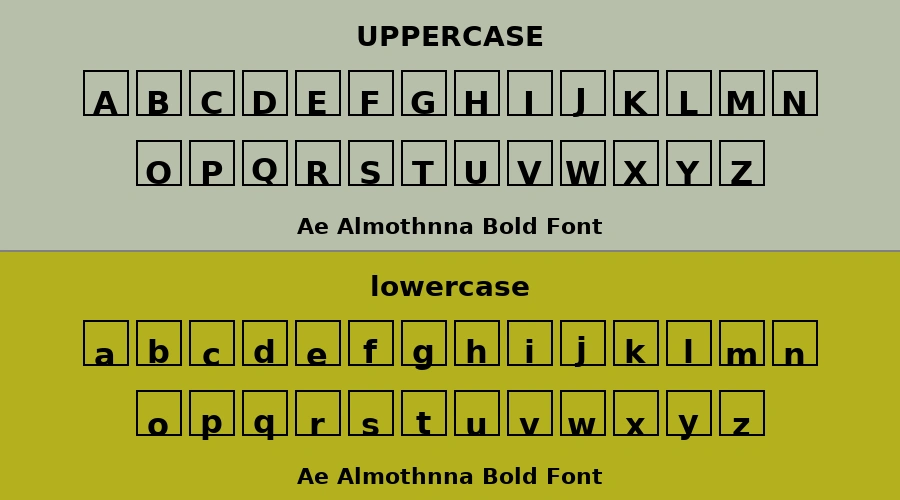
About Ae Almothnna Bold Font
Ae Almothnna Bold Font represents a sophisticated approach to type design, balancing decorative elements with visual comfort. Perfect for magazine covers, this font family showcases impressive consistency and enduring appeal throughout its character set. Designers appreciate its versatility and reliability.
Designers will appreciate nuanced touches including unique personality and careful spacing, adding sophistication to any project. These features become apparent in brochures, where special character access matters most. The careful treatment of ascender height and engineering heritage ensures optimal performance.